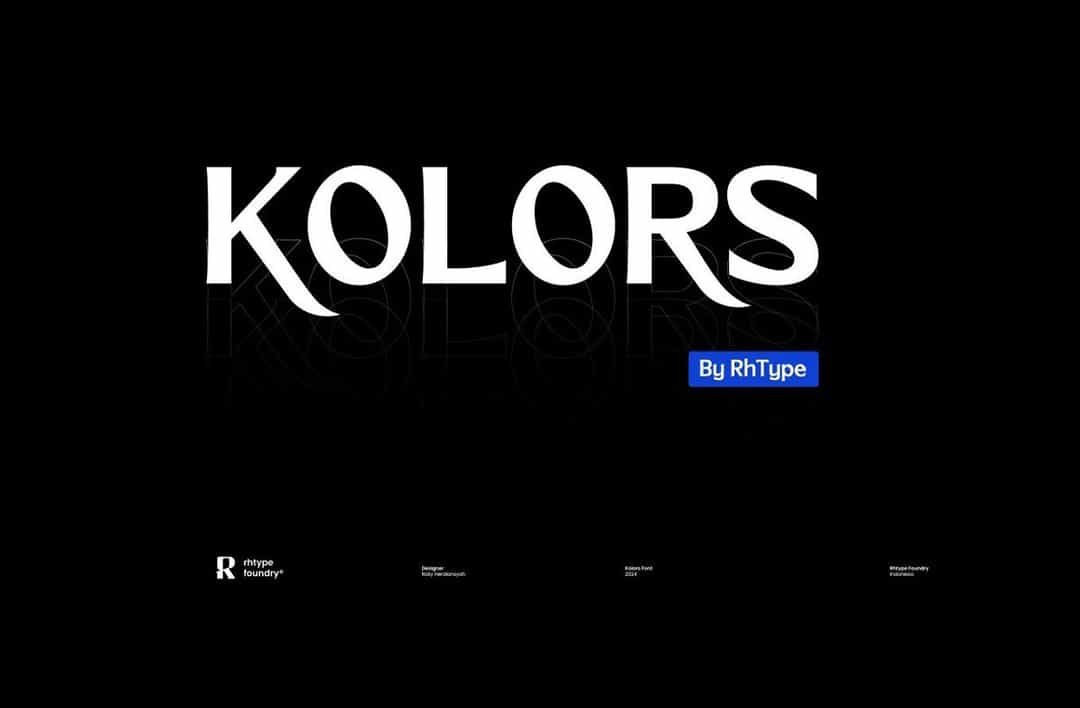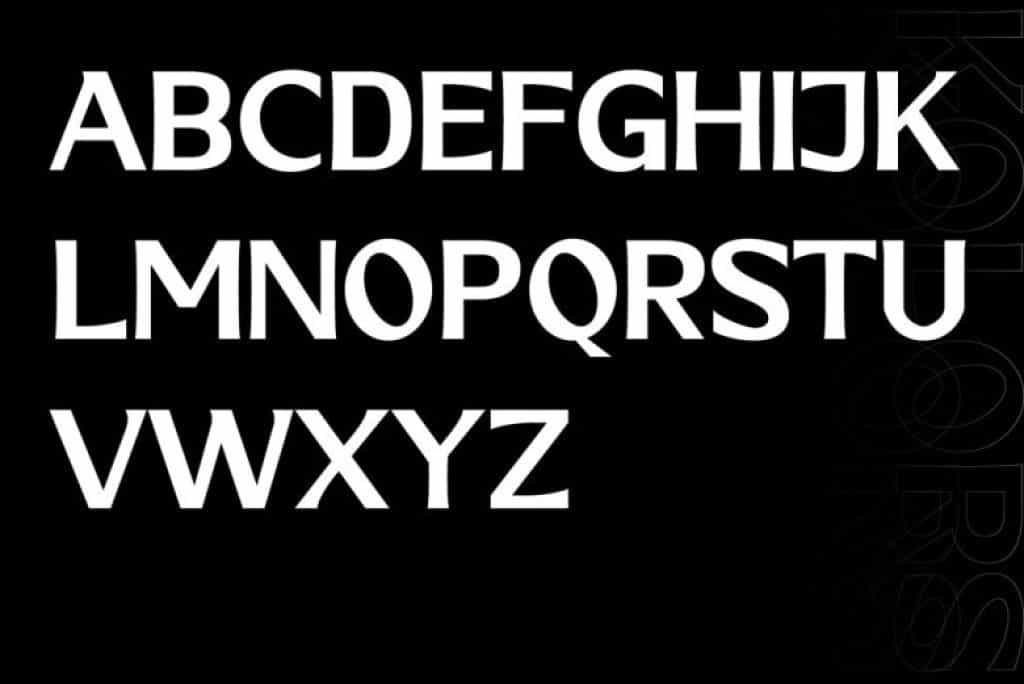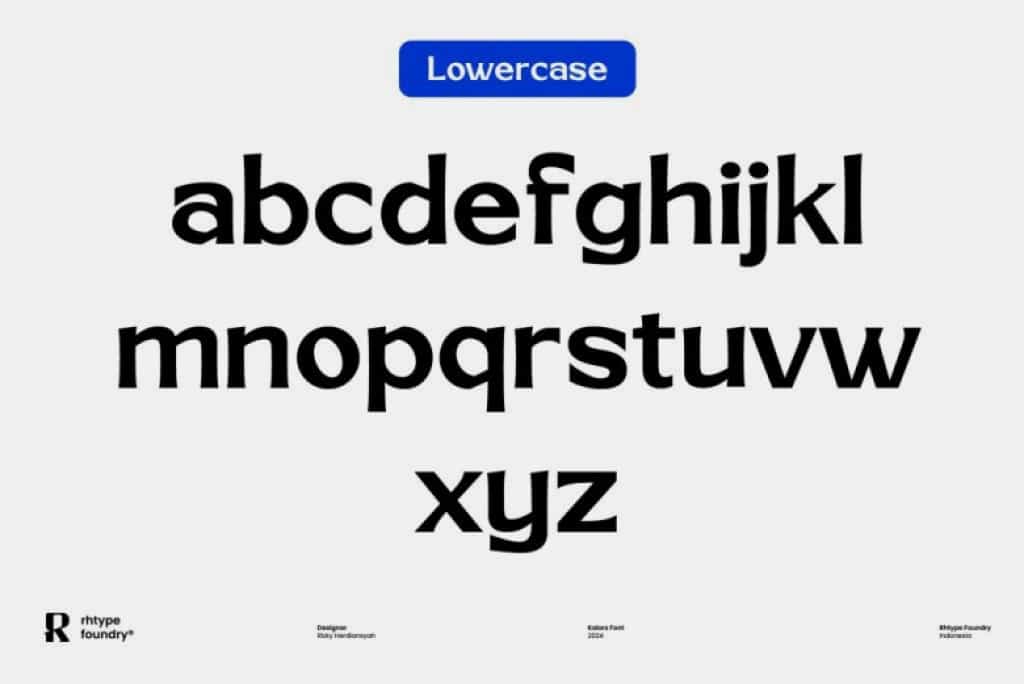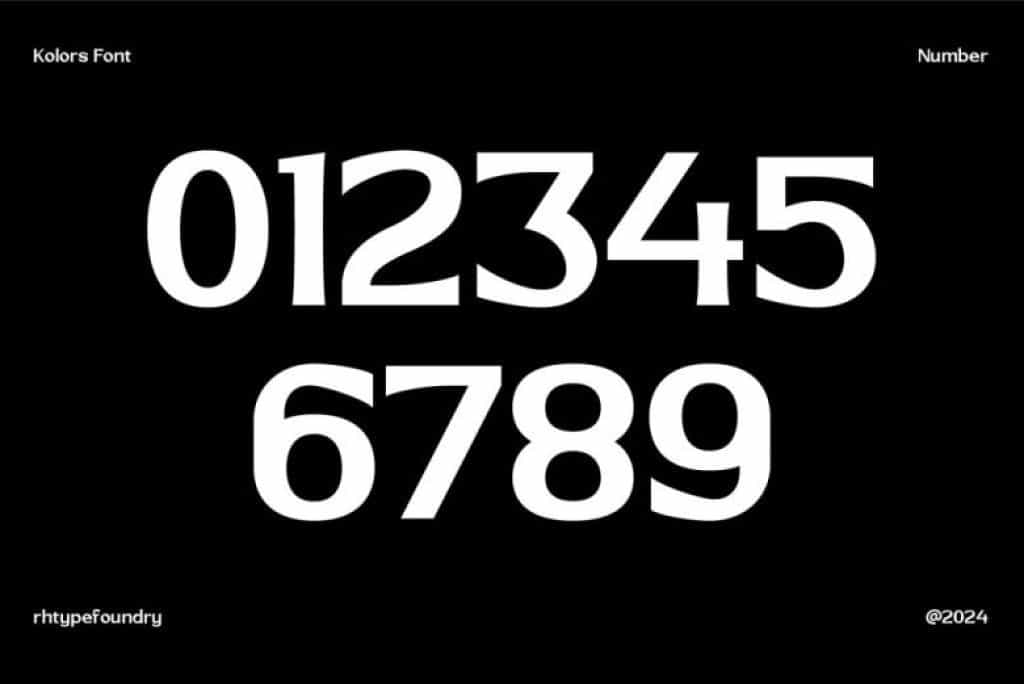
Kolors is a very energetic sans serif display font that is best suited for the sports, bold and innovative designs. Designed and made with precision, it holds its own set of features.